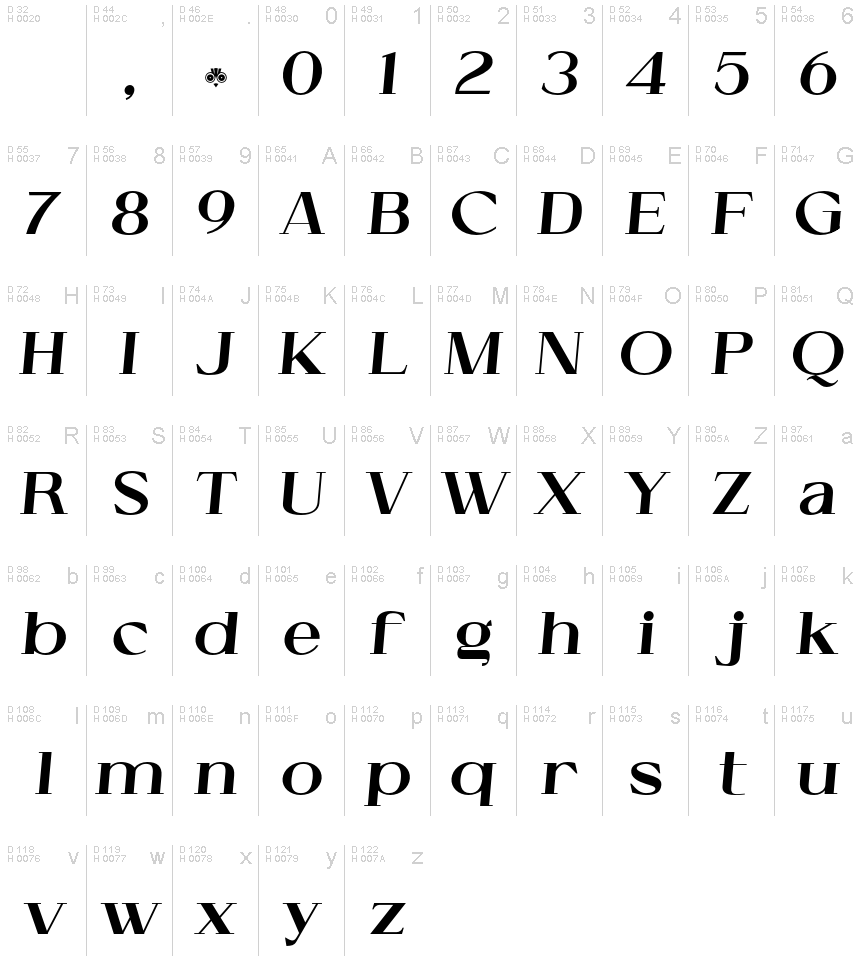
Cellofy ExtBlk SemExp Ita font, from the Cellofy family by Owlking Project, is a striking serif typeface free for personal use. Its bold and expanded characteristics create a powerful presence, blending classic serif elegance with modern flair. The italic style enhances its dynamic appeal, making it ideal for eye-catching headlines and sophisticated branding projects.
Cellofy ExtBlk SemExp Ita
Extra Black Semi Expanded Italic